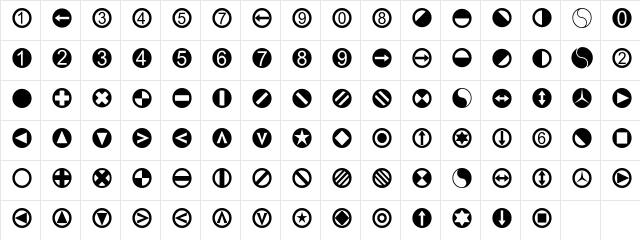
LinotypeTapestry-Circle Regular Font Preview
LinotypeTapestry-Circle Regular
LinotypeTapestry-Circle Regular Font Details
Design Context for LinotypeTapestry-Circle Typeface
LinotypeTapestry-Circle takes a measured approach to typography — its balanced proportions and neutral character make it a reliable workhorse for both digital and print work.